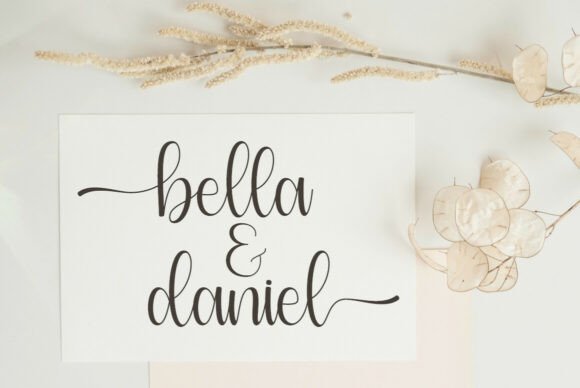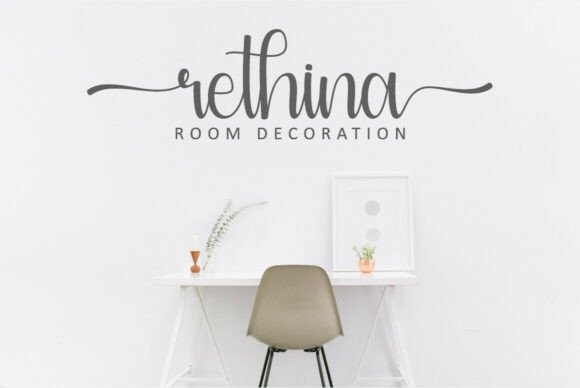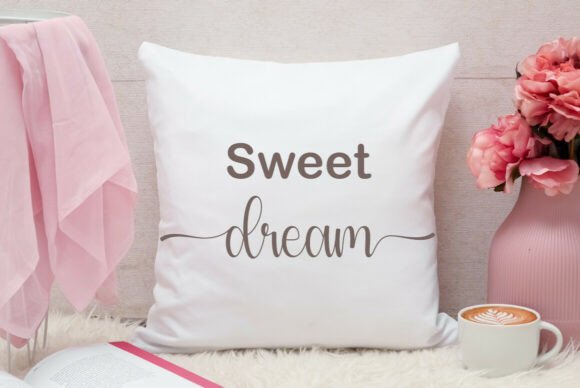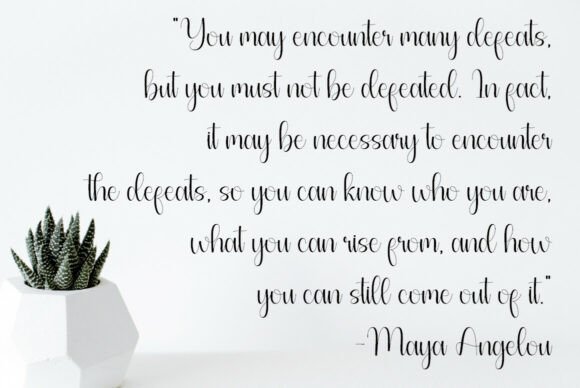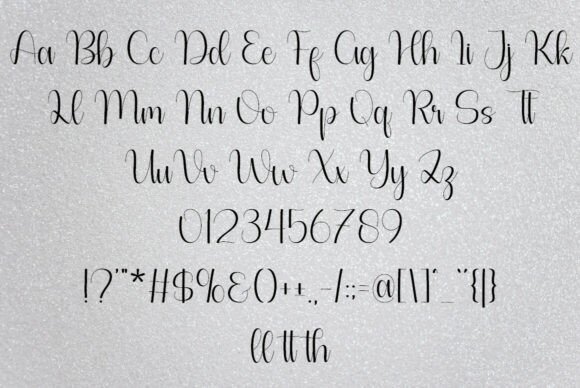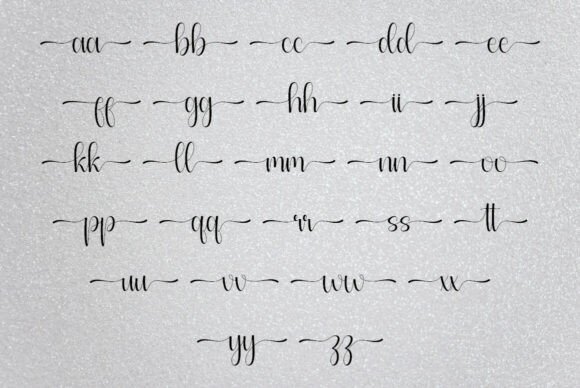
Introducing Adonay Font: The Sweet and Elegant Handwritten Font for Your Design Needs
Are you looking for a font that can add a touch of elegance and romance to your designs? Look no further than Adonay Font, a beautiful and cursive handwritten font that is perfect for a variety of design projects. In this article, we’ll take a closer look at Adonay Font and explore its features, uses, and benefits for designers and crafters.
What is Adonay Font?
Adonay Font is a sweet and cursive handwritten font that is designed to add a joyful and romantic touch to your designs. Its gentle and flowing curves make it perfect for creating elegant and sophisticated designs that are sure to impress. Whether you’re working on a branding project, a wedding invitation, or a fashion lookbook, Adonay Font is the perfect choice.
Key Features of Adonay Font
So, what makes Adonay Font so special? Here are some of its key features:
- Sweet and Cursive Handwritten Style: Adonay Font has a beautiful, cursive handwritten style that is perfect for creating elegant and sophisticated designs.
- Versatile: Adonay Font is versatile and can be used on a variety of design projects, from branding and logos to wedding invitations and greeting cards.
- Elegant and Romantic: Adonay Font has a romantic and elegant feel that is sure to add a touch of sophistication to your designs.
- Casual yet Fancy: Adonay Font is perfect for designs that need to look fancy and elegant, but still casual and approachable.
Uses of Adonay Font
Adonay Font is perfect for a wide range of design projects, including:
- Branding and Logo Design: Adonay Font is perfect for creating elegant and sophisticated brand identities and logos.
- Wedding Invitations and Stationery: Adonay Font is a popular choice for wedding invitations, greeting cards, and other stationery.
- Fashion and Lookbook Design: Adonay Font is perfect for creating stylish and elegant fashion lookbooks and marketing materials.
- Marketing and Promotion: Adonay Font can be used to create eye-catching marketing materials, such as brochures, flyers, and posters.
Benefits of Using Adonay Font
So, why should you choose Adonay Font for your design projects? Here are some of the benefits of using Adonay Font:
- Unique and Elegant Designs: Adonay Font allows you to create unique and elegant designs that are sure to stand out.
- Easy to Read and Understand: Adonay Font is easy to read and understand, making it perfect for designs that need to communicate a message.
- Flexible and Versatile: Adonay Font is versatile and can be used on a wide range of design projects.
- Time-Saving: Adonay Font can save you time and effort in creating designs, as it provides a beautiful and elegant font that can be used right out of the box.
Tips for Using Adonay Font
Here are some tips for using Adonay Font effectively in your designs:
- Use it with a Clear Background: Adonay Font looks best with a clear background, so make sure to choose a background that complements the font.
- Experiment with Different Sizes and Colors: Adonay Font can be used in a variety of sizes and colors, so experiment to find the perfect combination for your design.
- Pair it with Other Fonts: Adonay Font can be paired with other fonts to create a unique and interesting design.
| Font Name | Adonay Font |
| Author | Hardiboy Design |
Adonay Font is a beautiful and elegant handwritten font that is perfect for a wide range of design projects. Its sweet and cursive style makes it perfect for creating elegant and sophisticated designs that are sure to impress. With its versatility, flexibility, and ease of use, Adonay Font is a must-have font for designers and crafters. So, if you’re looking for a font that can add a touch of elegance and romance to your designs, look no further than Adonay Font.